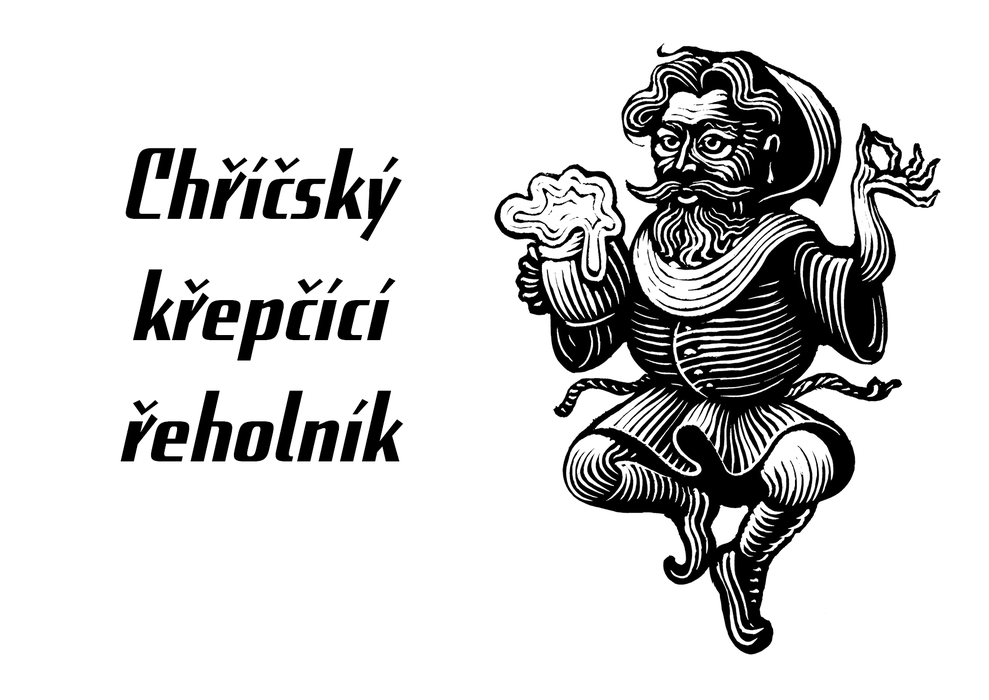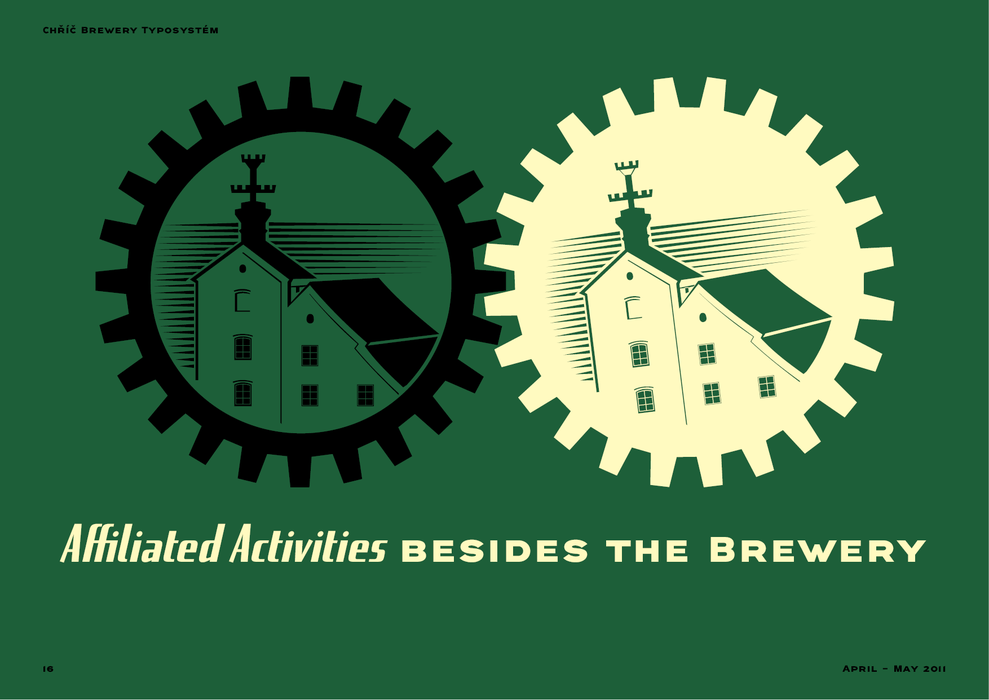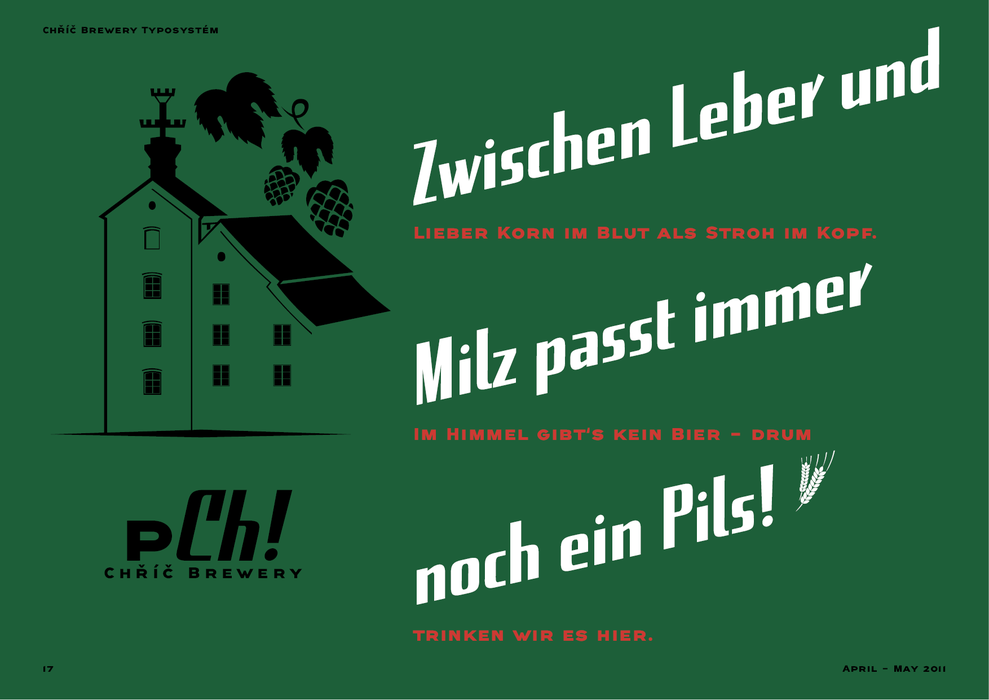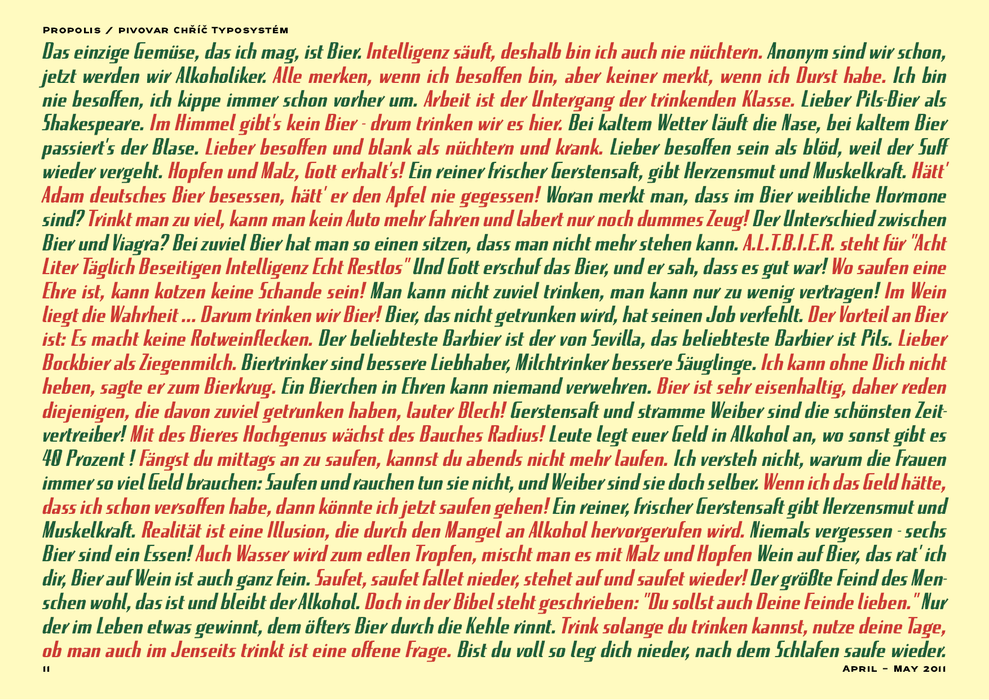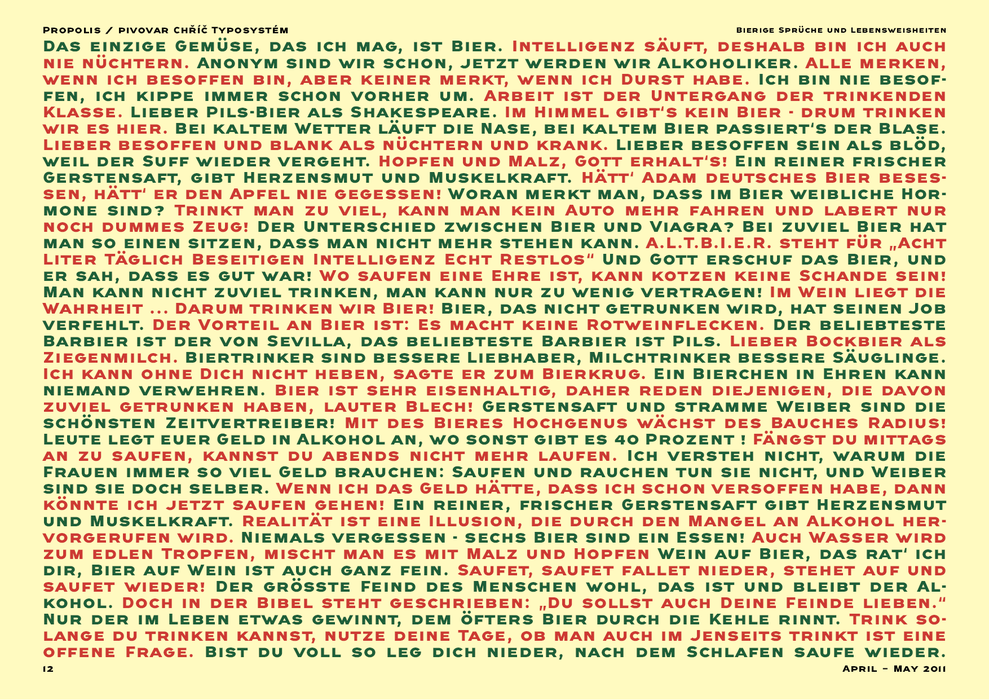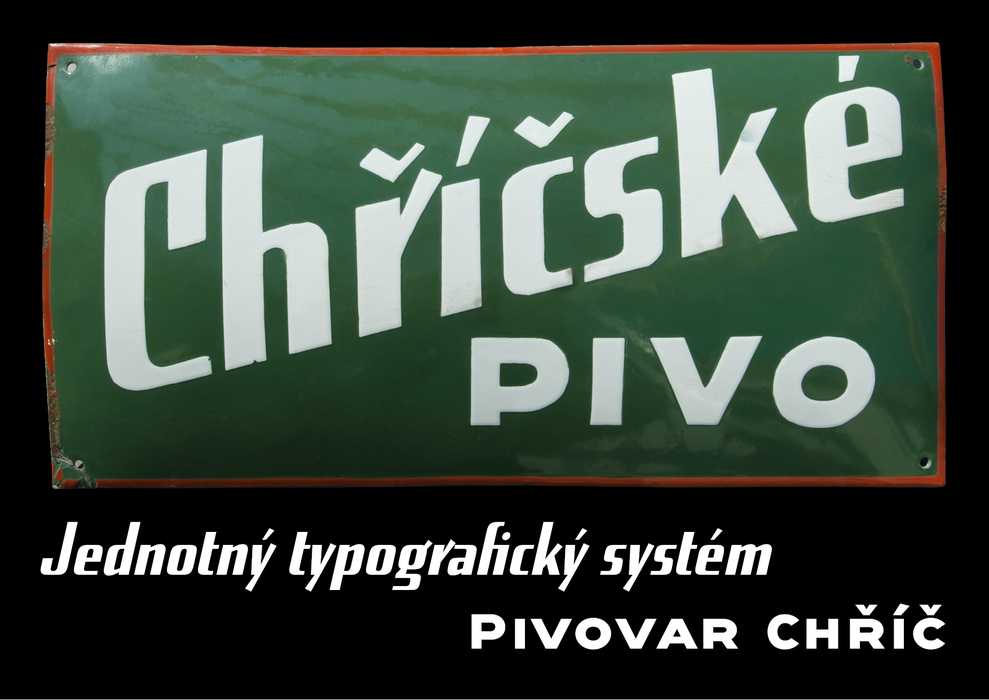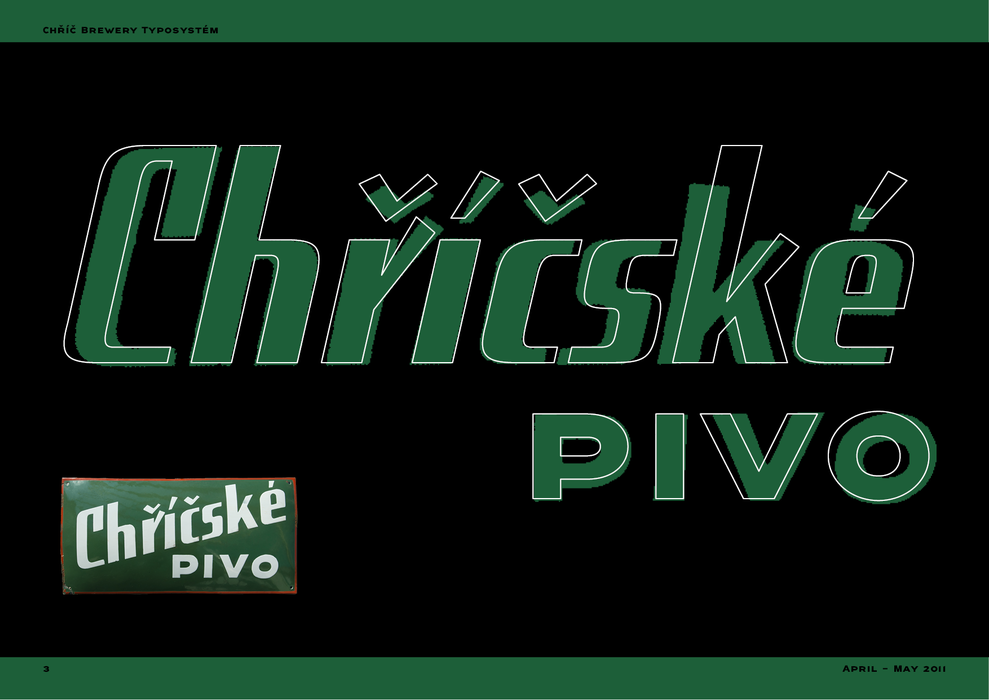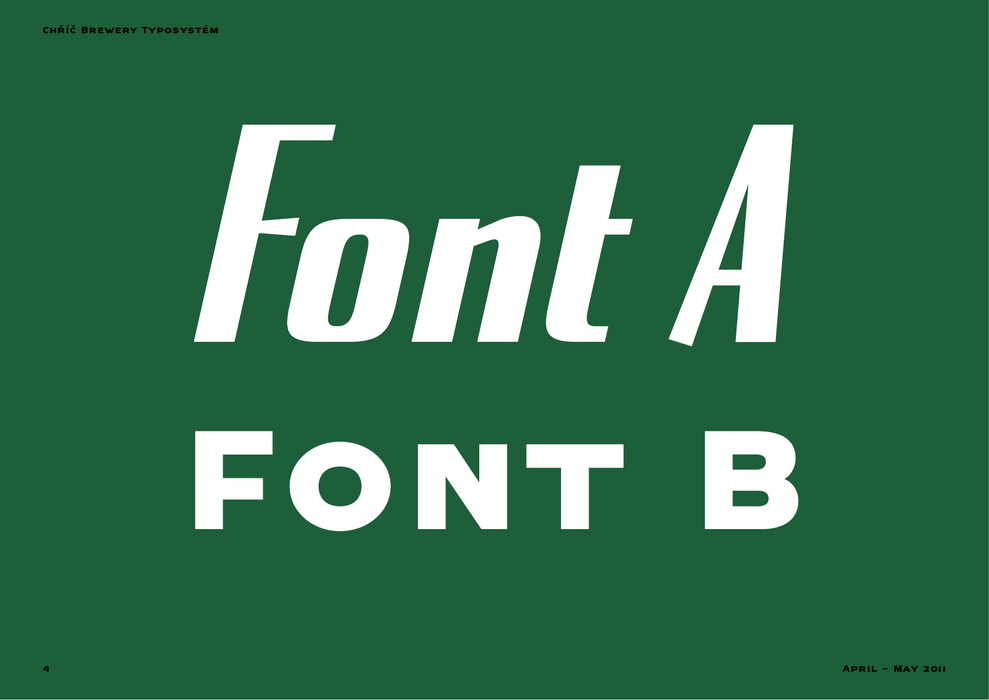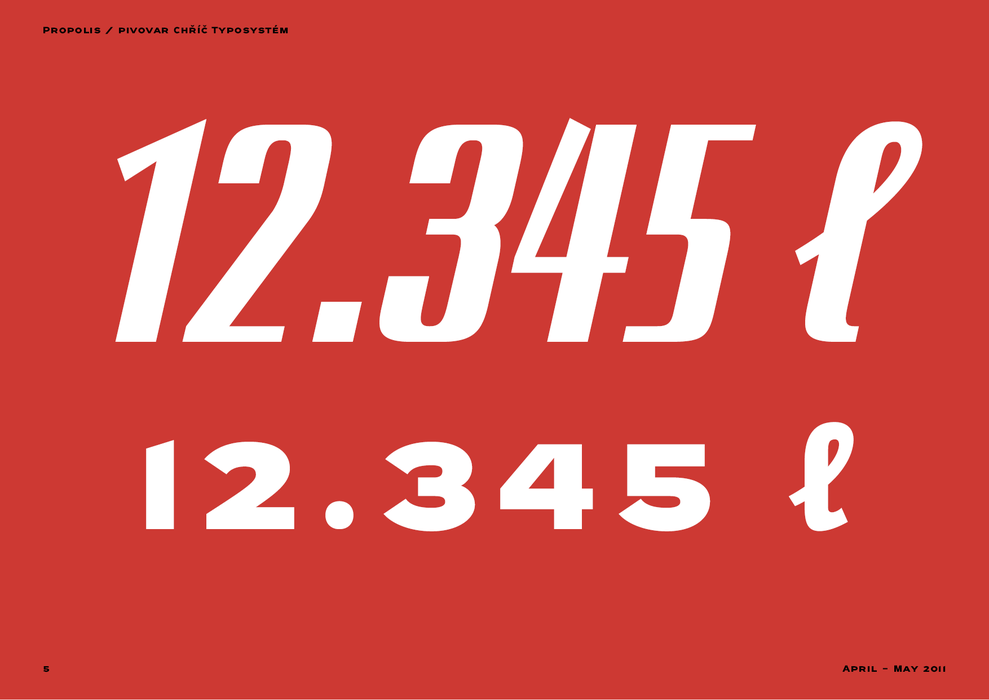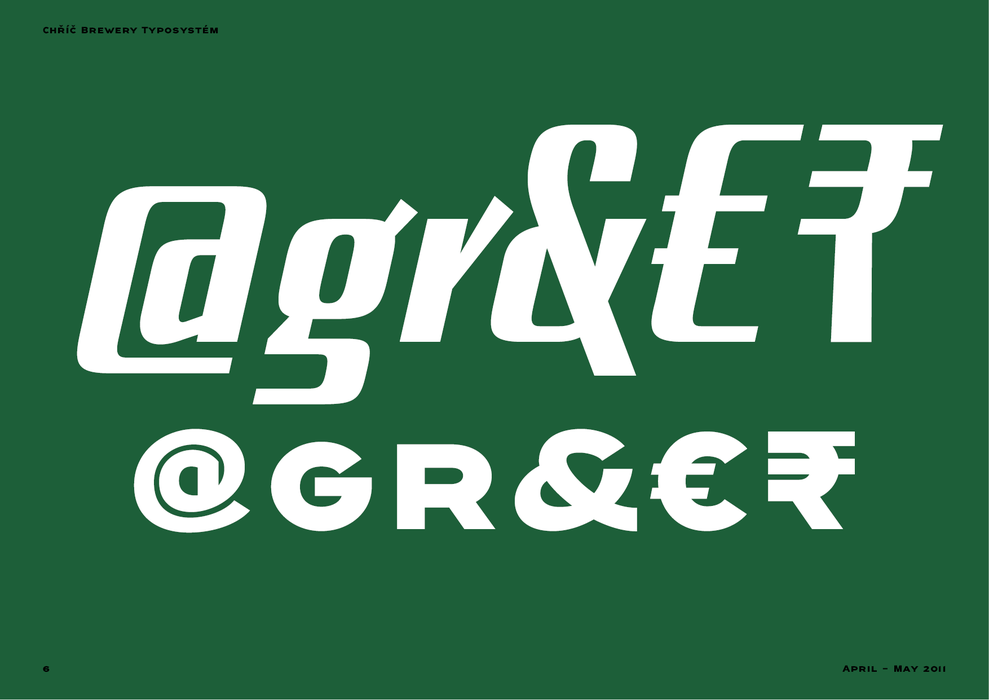
Chříč brewery
The brewery was founded in 1560 and cancelled in about 1950. The project for 2011 is to fix the building and renew the brewery. Brewery design needs sentimental typefaces, as drinkers are sentimental enough, and the brewer appreciates any „retro“ reminder of an „ancient“ tradition of his skills. Two simple fonts only, based on an old enamel plate found in the damaged house, no additional styles. Not particularly beautiful, but very appropriate to the content. Another dream client...